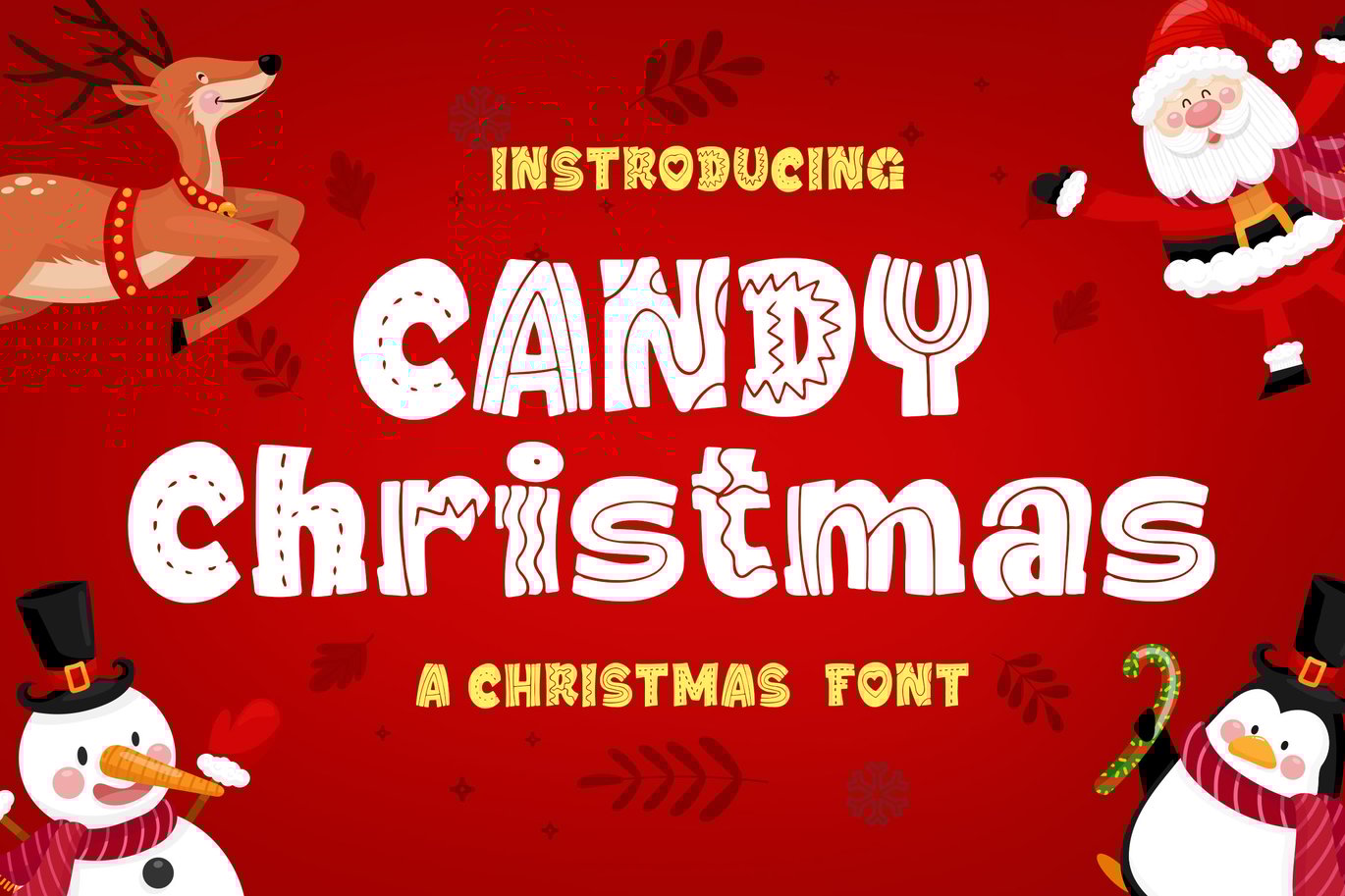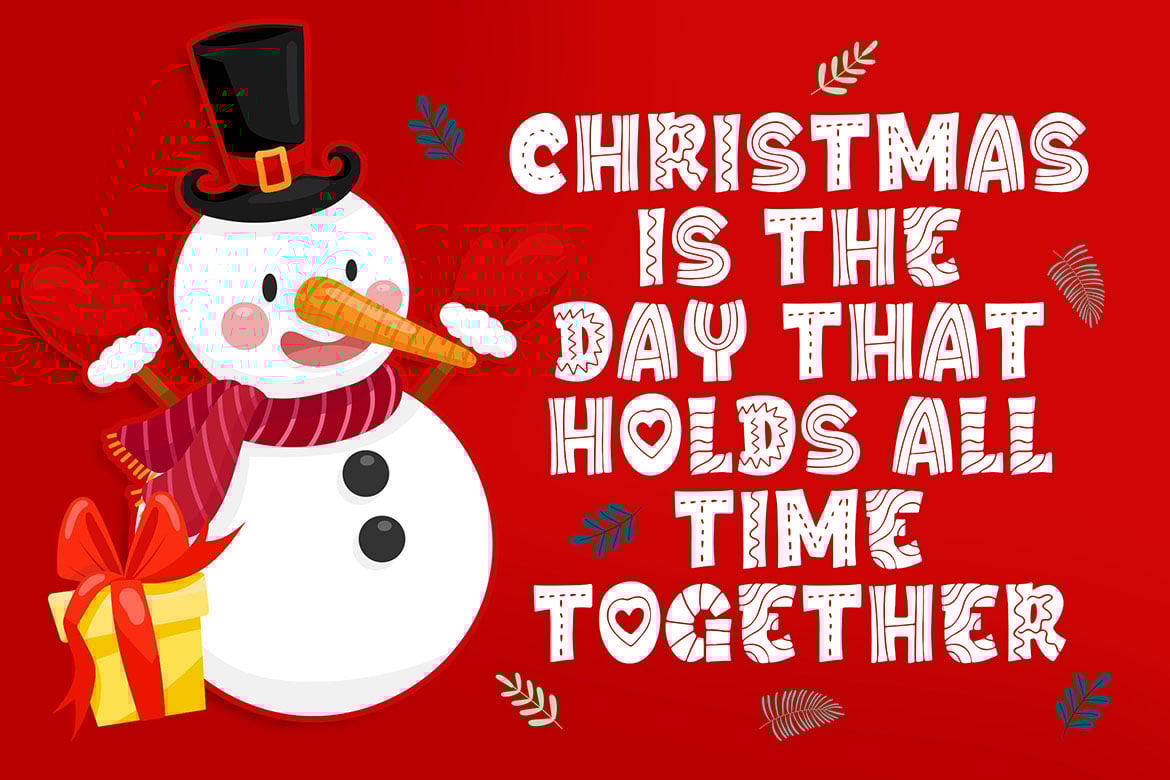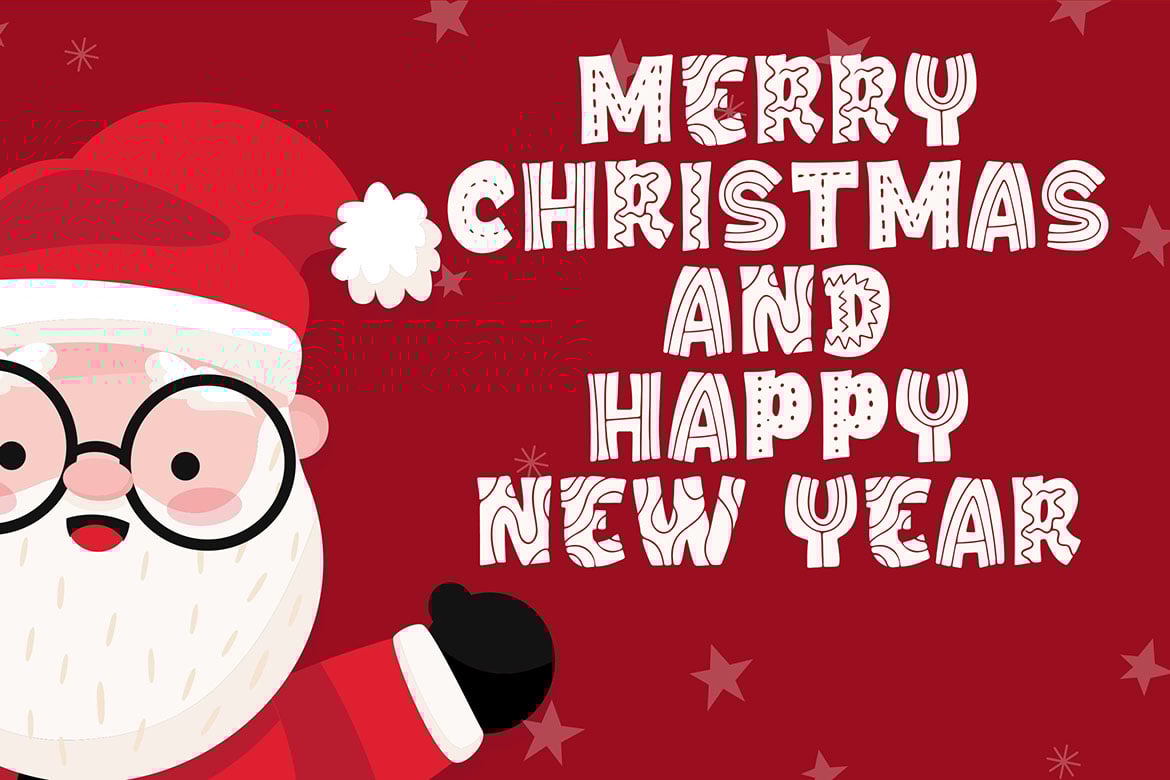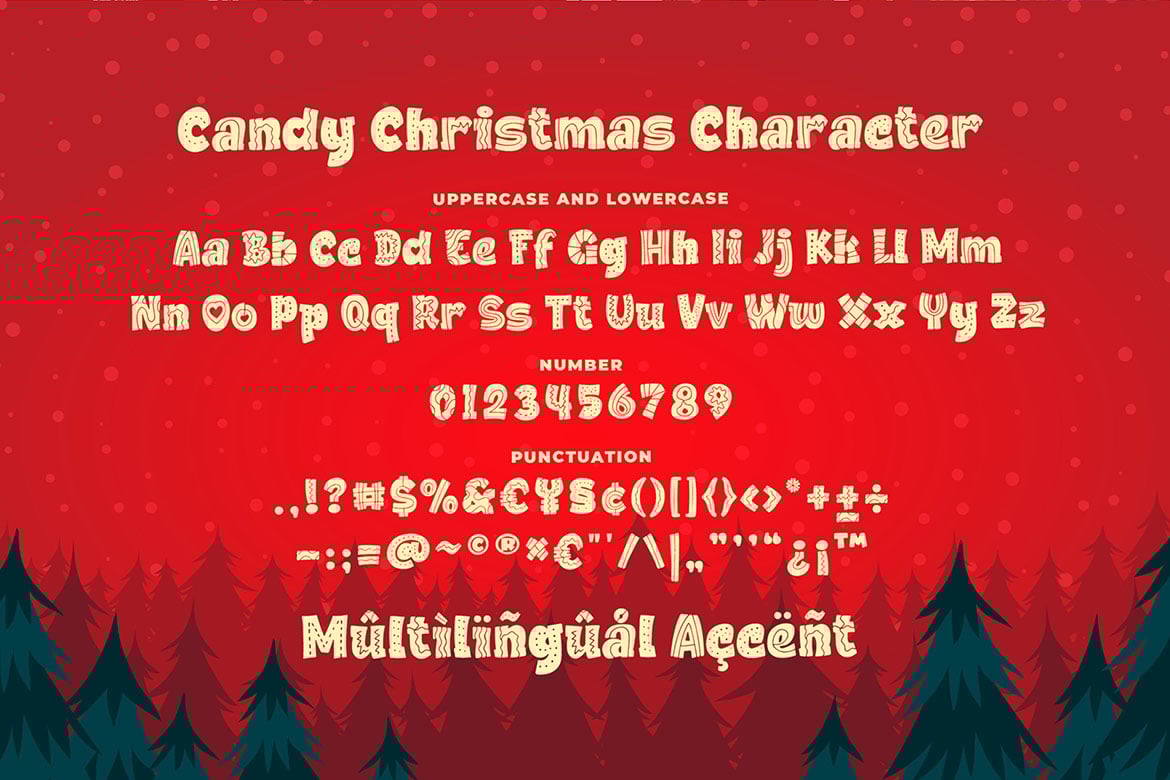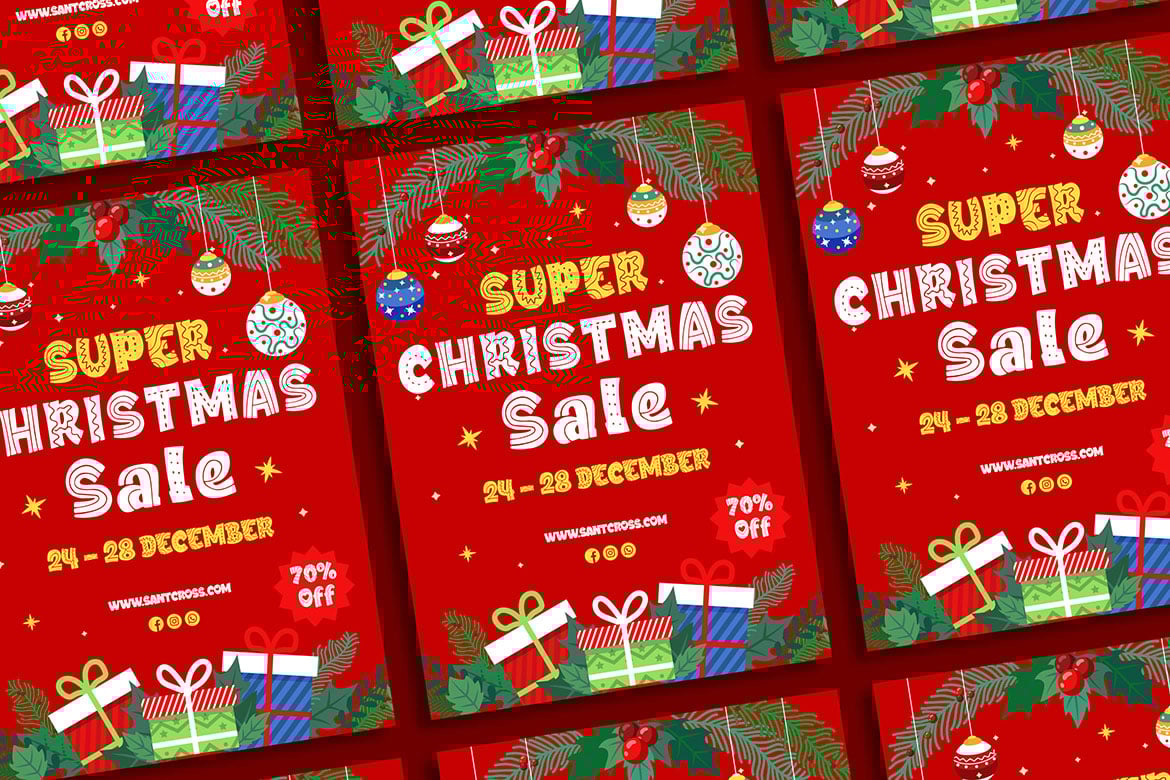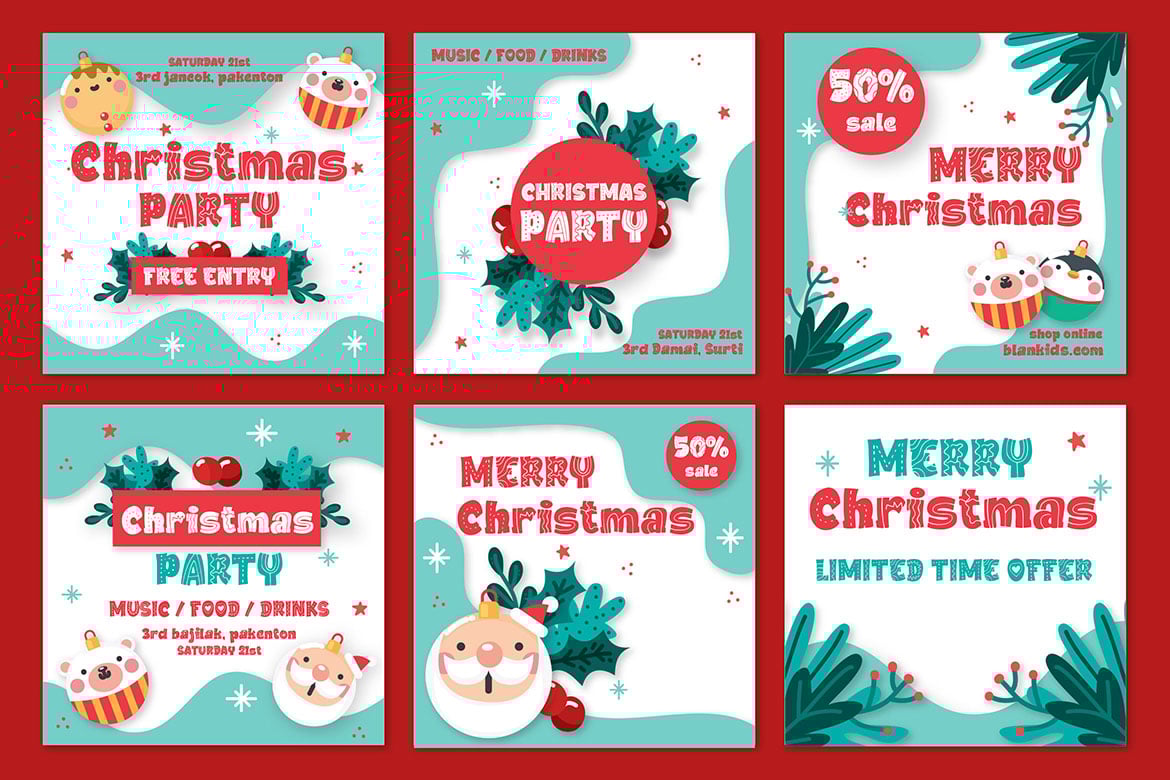
Candy Christmas Font
Introducing of our new product the name is Candy Christmas Font inspired by beauty calligraphy style this font is a fun theme very good for display, tshirt design, craft, quote sign, logotype and etc